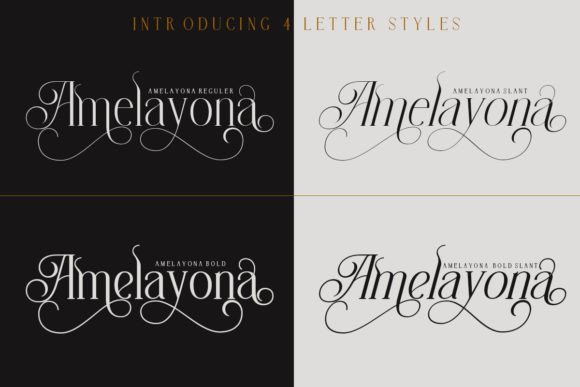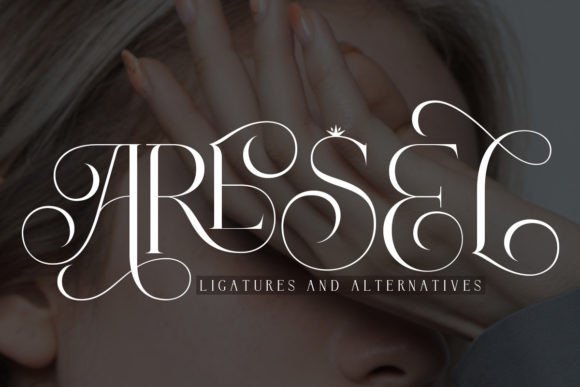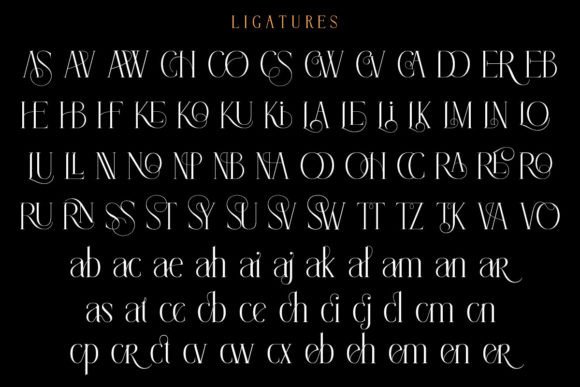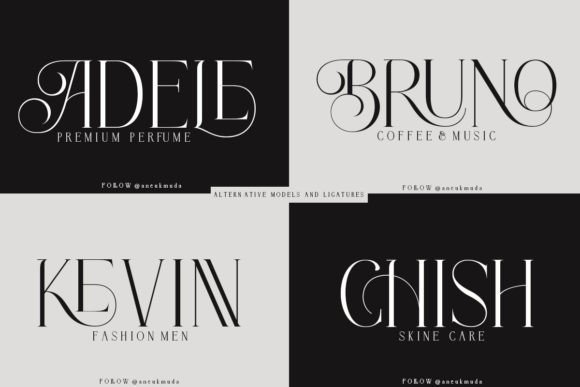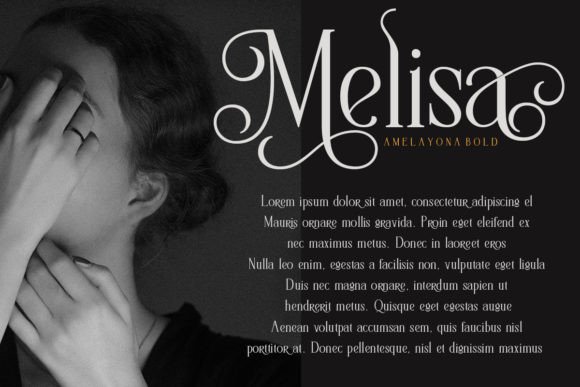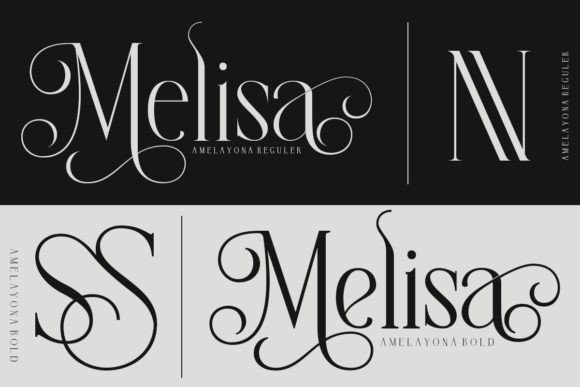
Introducing Amelayona Font: Elevate Your Designs with Elegance and Style
Are you on the hunt for a font that exudes sophistication and refinement? Look no further than Amelayona, a breathtaking serif font that is sure to become your go-to choice for all your design needs. With its masterful design and PUA encoding, Amelayona has the potential to take your creative ideas to new heights!
The Essence of Amelayona Font
Amelayona is more than just a font – it’s an experience. Its serif design lends a touch of classic elegance to any project, making it perfect for designers and crafters who want to add a dash of sophistication to their work. Whether you’re creating a logo, crafting a brand identity, or designing a beautiful piece of art, Amelayona is the perfect choice.
What Makes Amelayona Special?
So, what sets Amelayona apart from other fonts? Here are just a few features that make it a standout:
- PUA Encoding: Amelayona is PUA (Private Use Area) encoded, which means you can access all the glyphs and ligatures with ease. This feature makes it incredibly easy to use and customize the font to suit your needs.
- Elegant Serif Design: The serif design of Amelayona is both classic and timeless, making it perfect for projects that require a touch of sophistication.
- Versatility: Amelayona is a versatile font that can be used for a wide range of projects, from branding and advertising to packaging and digital design.
Why Choose Amelayona Font?
With so many fonts available, why choose Amelayona? Here are just a few reasons why designers and crafters are falling in love with this stunning serif font:
- Ease of Use: With PUA encoding, you can easily access all the glyphs and ligatures, making it simple to use and customize the font.
- High-Quality Design: Amelayona is masterfully designed to provide a high-quality look that will elevate your designs and make them stand out.
- Unique Touch: The elegant serif design of Amelayona adds a unique touch to any project, setting it apart from more generic fonts.
Amelayona is a font that is perfect for designers and crafters who want to add a touch of elegance and style to their work. Whether you’re creating:
- Branding and Identity: Use Amelayona to create stunning logos, business cards, and brand identities that exude sophistication.
- Digital Design: Add a touch of elegance to your digital designs, including websites, social media graphics, and more.
- Packaging: Use Amelayona to create beautiful packaging that stands out on store shelves.
- Art and Illustration: Add a touch of sophistication to your art and illustrations with Amelayona.
In conclusion, Amelayona is a stunning serif font that embodies elegance and style. With its PUA encoding, elegant design, and versatility, it’s the perfect choice for designers and crafters who want to take their creative ideas to the next level. Whether you’re creating branding and identity, digital design, packaging, or art and illustration, Amelayona is sure to become your go-to font. So why wait? Try Amelayona today and experience the power of elegant typography!